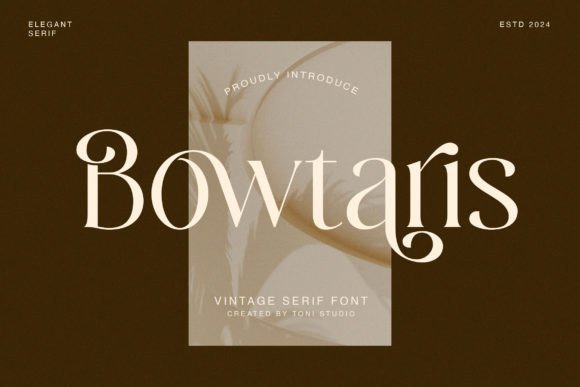
The Quest for Timeless Elegance: Discovering Bowtaris Font
First Impressions: A Love Affair with Bowtaris
Bowtaris Font is an aesthetic vintage serif font that brings a sparkle of elegance to any design project. Its classic design is reminiscent of traditional typefaces from the past, yet it feels fresh and modern. Here’s what I love about Bowtaris:
- ✨ Elegant serifs that add a touch of sophistication
- ✅ Excellent readability, even at small font sizes
- 💫 Beautifully crafted glyphs and stylistic alternates
- 📚 Support for multiple languages
The Honest Review: Not Perfect, But Close
While Bowtaris is an exceptional font, it’s not without its quirks. Here are a few limitations to keep in mind:
- 🤔 Limited availability of certain OpenType features in some software
- ⚠️ Some users may find the font too ornate for certain projects
The Designer Inspiration Behind Bowtaris
The story behind Bowtaris is one of passion and dedication. According to its creators, Bowtaris was inspired by traditional typefaces from the 18th century, with a dash of modern elegance. The goal was to craft a font that would evoke a sense of timeless charm, perfect for designers and crafters seeking a touch of sophistication.
| What is Bowtaris Font? | Bowtaris is an aesthetic vintage serif font with a sparkle of elegance, perfect for designs that require a touch of sophistication. |
| Is Bowtaris suitable for body text? | Yes, Bowtaris is suitable for body text, especially in larger font sizes. However, it may not be the best choice for very small font sizes or extensive reading materials. |
| Does Bowtaris support OpenType features? | Yes, Bowtaris supports OpenType features, including ligatures, stylistic alternates, and glyphs. |